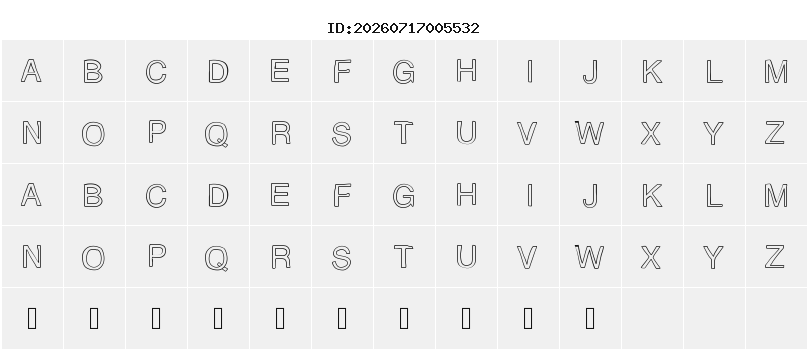
AZ Preview
• Font Name: AZ
• Full Font Name: AZ
About AZ.ttf
AZ.ttf is a modern, elegant sans-serif font designed for ultimate readability and visual harmony. Perfect for branding, headlines, web design, and print materials.